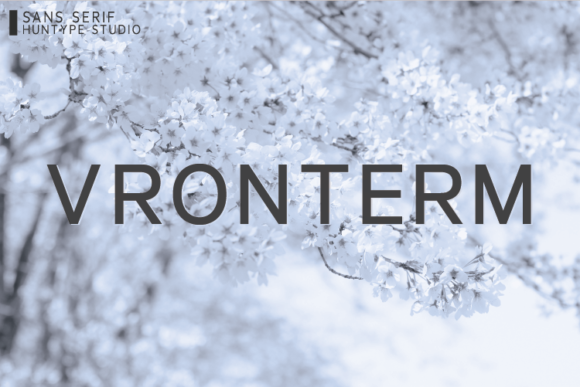
Dive into the realm of typography with Vronterm Font, a sans serif masterpiece that exudes simplicity and sophistication. Journey through pages adorned with this font, where words dance with elegance, leaving an indelible mark on readers' minds. Whether crafting a book title page, designing captivating posters, or forging unforgettable branding, Vronterm Font emerges as your trusted companion.
Within this font family, you'll discover a treasure trove of possibilities. Its clean lines and unassuming presence lend themselves effortlessly to a myriad of creative endeavors. Unleash your imagination and watch as your words transform into captivating works of art, leaving a lasting impression on all who encounter them.
As you delve deeper into Vronterm's essence, you'll uncover a font that seamlessly adapts to your creative vision. Its versatility knows no bounds, making it the perfect choice for a diverse range of projects. From wedding invitations that exude timeless charm to social media posts that demand attention, Vronterm Font possesses the versatility to elevate your creations beyond the ordinary.